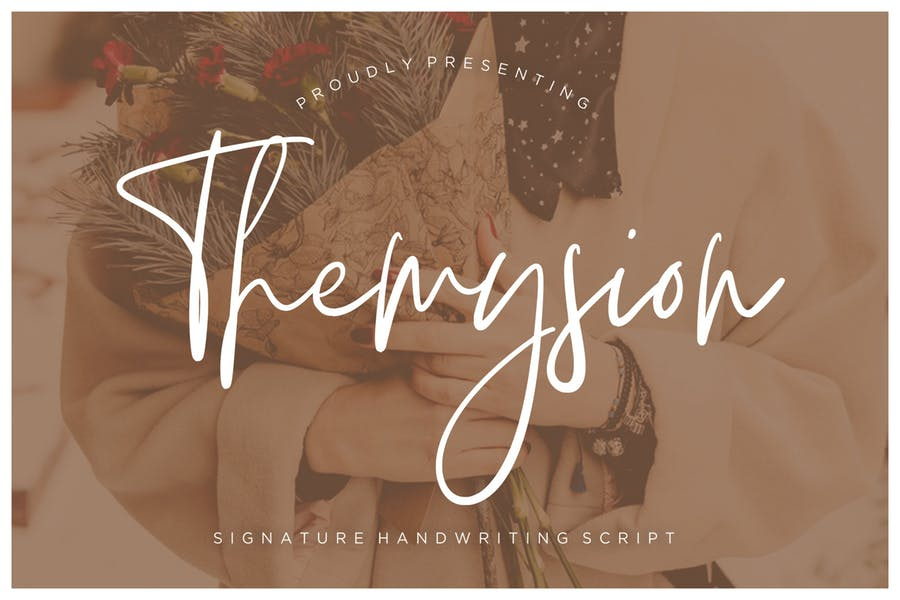
Themysio Font
Themysio Font is perfectly suited for fantasy novel covers, mystical branding projects, ancient mythology designs, magical product packaging, spiritual wellness materials, esoteric book publications, ceremonial event invitations, mystical gaming interfaces, and enchanted storytelling applications.
What makes Themysio Font so exciting is its captivating mystical aura and ancient wisdom that instantly transports viewers into realms of magic, mystery, and supernatural wonder through its enchanting letterforms. This extraordinary typeface draws inspiration from ancient scripts and mystical traditions, featuring ornate character shapes that seem to hold secrets from forgotten civilizations and magical realms. The font's intricate details and flowing curves create an atmosphere of otherworldly beauty and spiritual depth that resonates with audiences seeking connection to mystery and transcendence. Themysio Font stands out through its ability to convey magic, ancient wisdom, and spiritual transformation, making it perfect for projects that need to establish mystical authority while creating immersive experiences that transport audiences into fantastical worlds of imagination and wonder.
The Themysio Font family includes Regular, Medium, and Bold weights, each preserving the font's distinctive mystical character while providing design flexibility for various magical applications. The family also features decorative swashes, ancient symbols, and ornamental elements that enhance the font's supernatural aesthetic and provide comprehensive solutions for fantasy-themed design projects.
The technical mastery of Themysio Font includes an extensive character set with uppercase and lowercase letters, numerals, punctuation marks, and mystical symbols that maintain the font's otherworldly character. The font has been carefully crafted to ensure optimal performance across both digital and print applications while preserving the intricate details that give it its distinctive magical character and spiritual appeal.
Whether you're designing fantasy entertainment materials, creating spiritual wellness branding, developing mystical product packaging, or crafting designs that need to convey ancient wisdom and magical transformation, Themysio Font delivers the perfect combination of mystical authenticity and contemporary functionality that makes your projects resonate with audiences seeking transcendent experiences and connection to the magical realms of imagination.